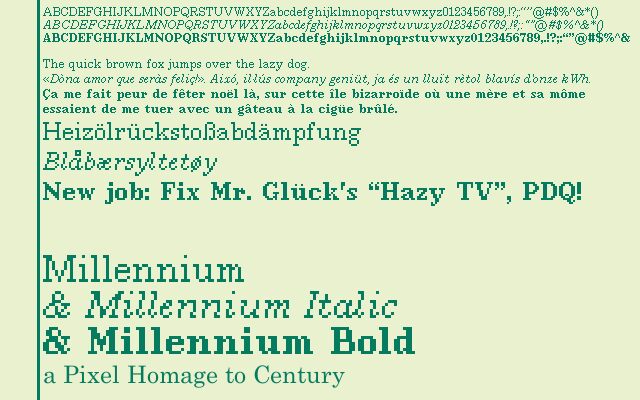
Millennium is my pixel homage to Century. This was originally made for the Keep Talking and Nobody Explodes mod English Test, but now it's here for all of you to use!
Prezentacja i próbka wizualna czcionki Millennium